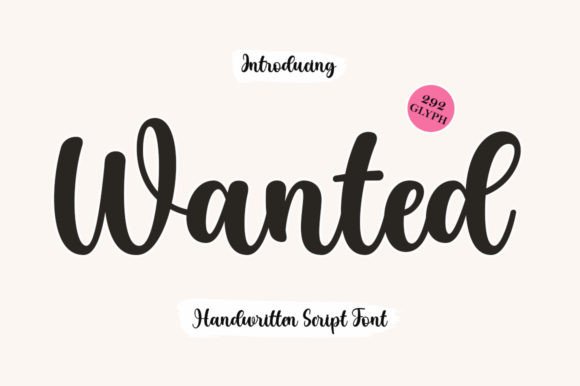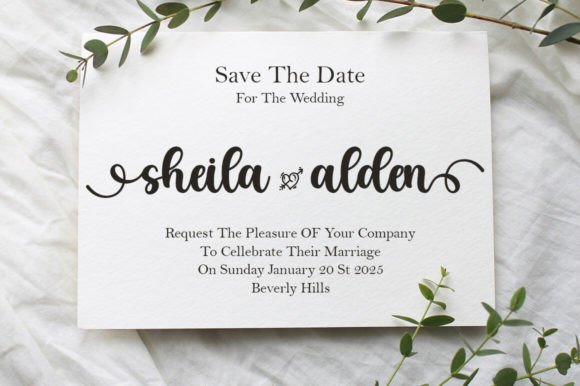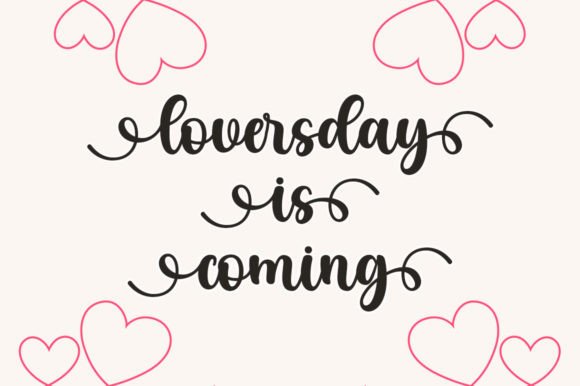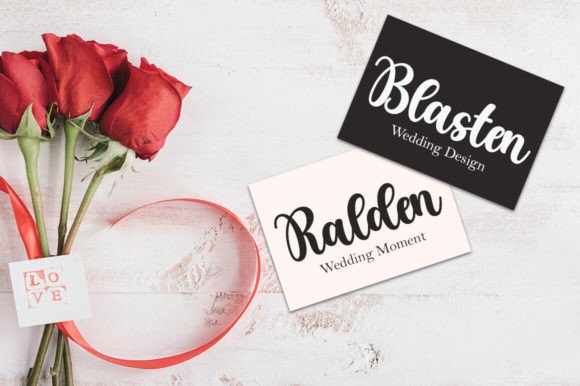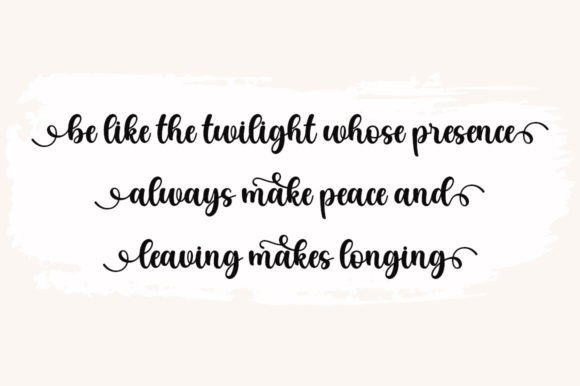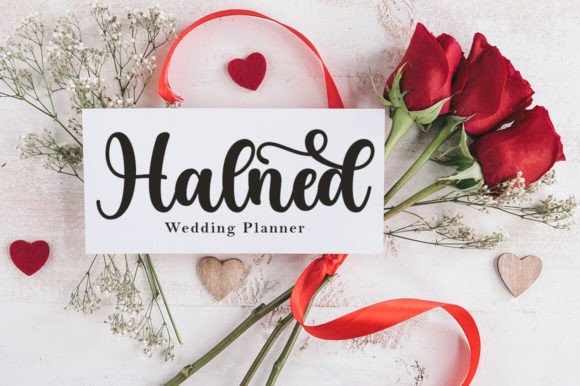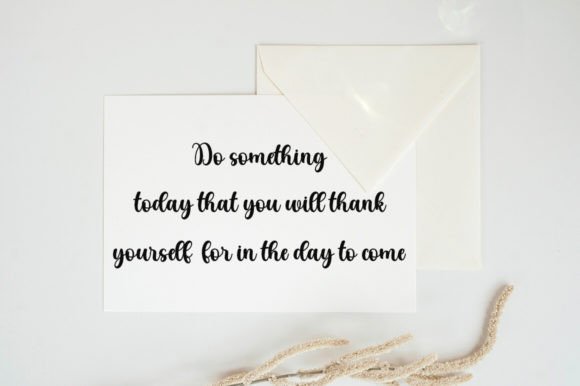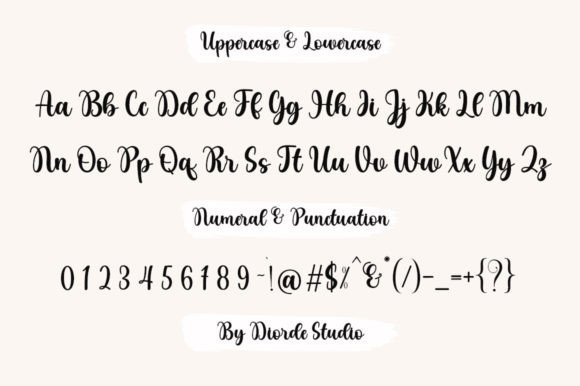
Wanted Font
Wanted is a lovely and delicate script font that exudes elegance and class. This font was particularly crafted for those who need a beautiful and refreshing look to their designs.